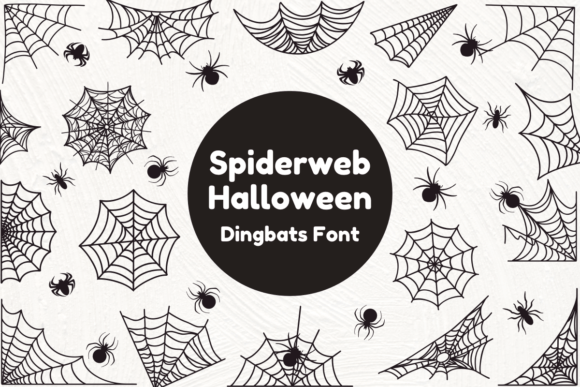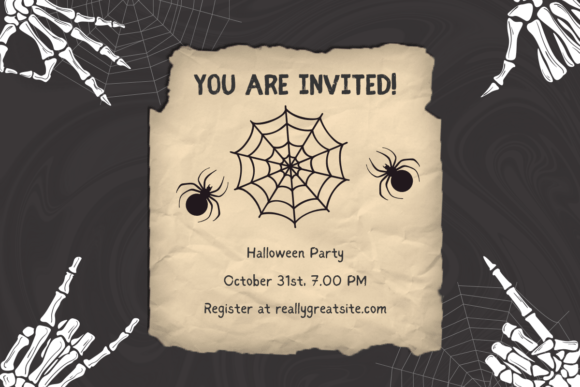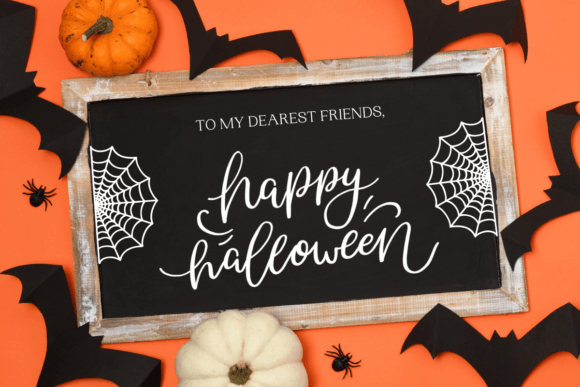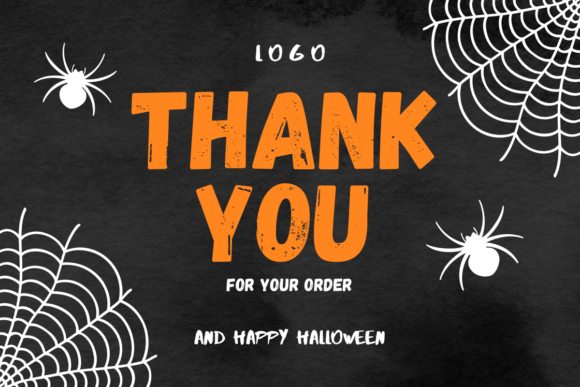
Spiderweb Halloween Font
About the Spiderweb Halloween Font
Get ready to be inspired by Spiderweb Halloween Font, a fresh and dynamic typeface for modern creators. Spiderweb Halloween is a dingbat font with a fun theme. This font can enhance your creative projects such as wedding invitations, DIY, crafts, decorations, logos, and many other creative ideas.
Spiderweb Halloween Font Usage Examples
Spiderweb Halloween Font Example